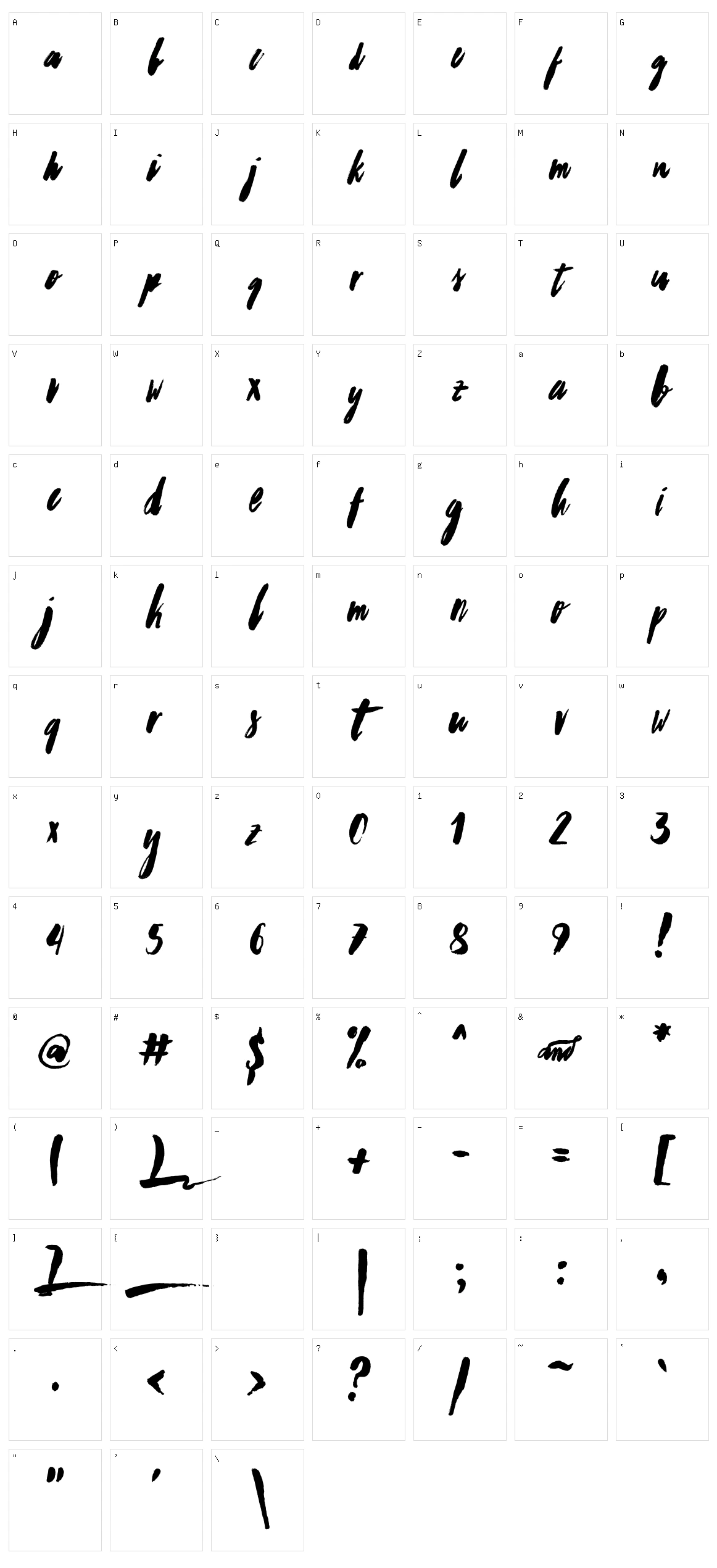
The free font Worthwhile is carefully designed by The Branded Quotes, showcasing a thoughtful balance of creativity and usability and falls under the Script font style. When you download the ZIP file, it contains only 426.42 KB of font files, making it lightweight and quick to download. Please review the license details below to understand permitted usage and distribution rights. If license information is not available, we recommend using this font for personal projects only or contacting the author directly for commercial usage permissions.